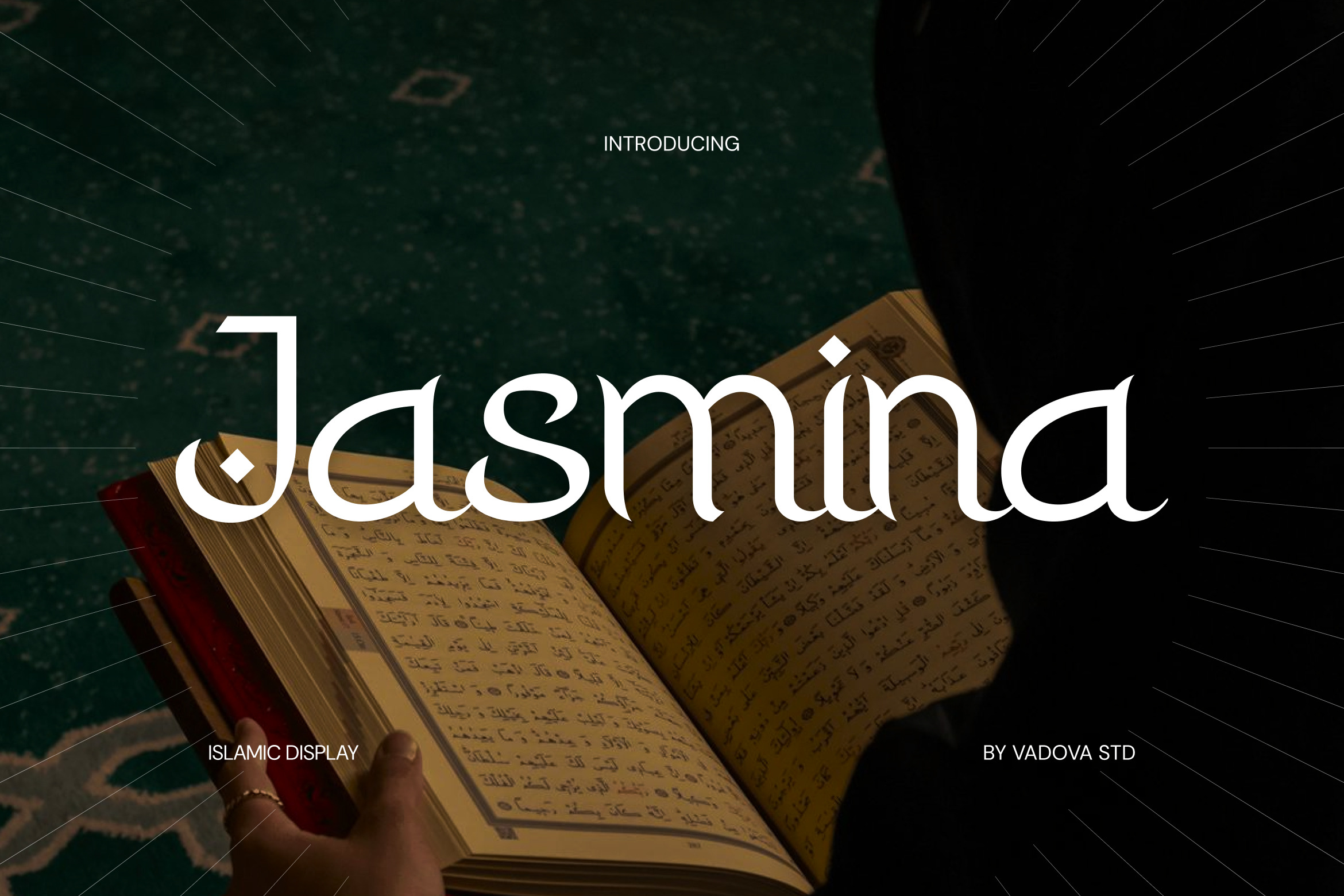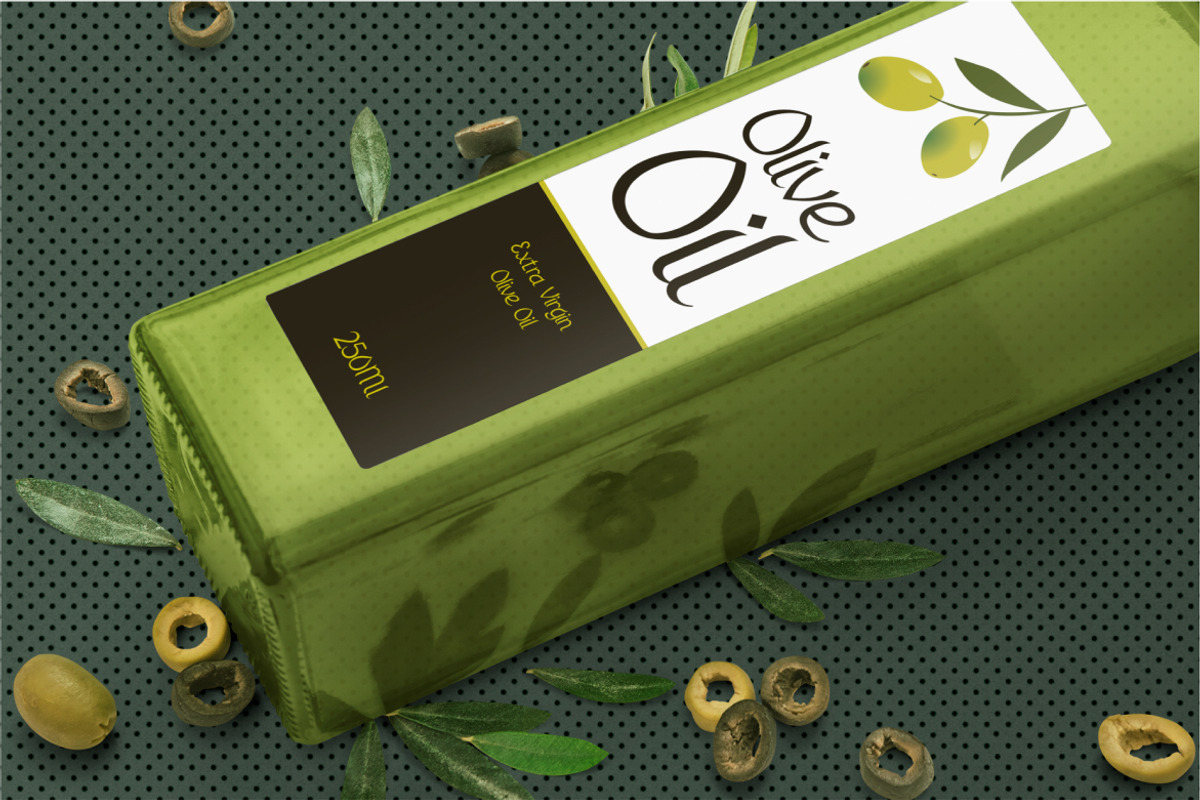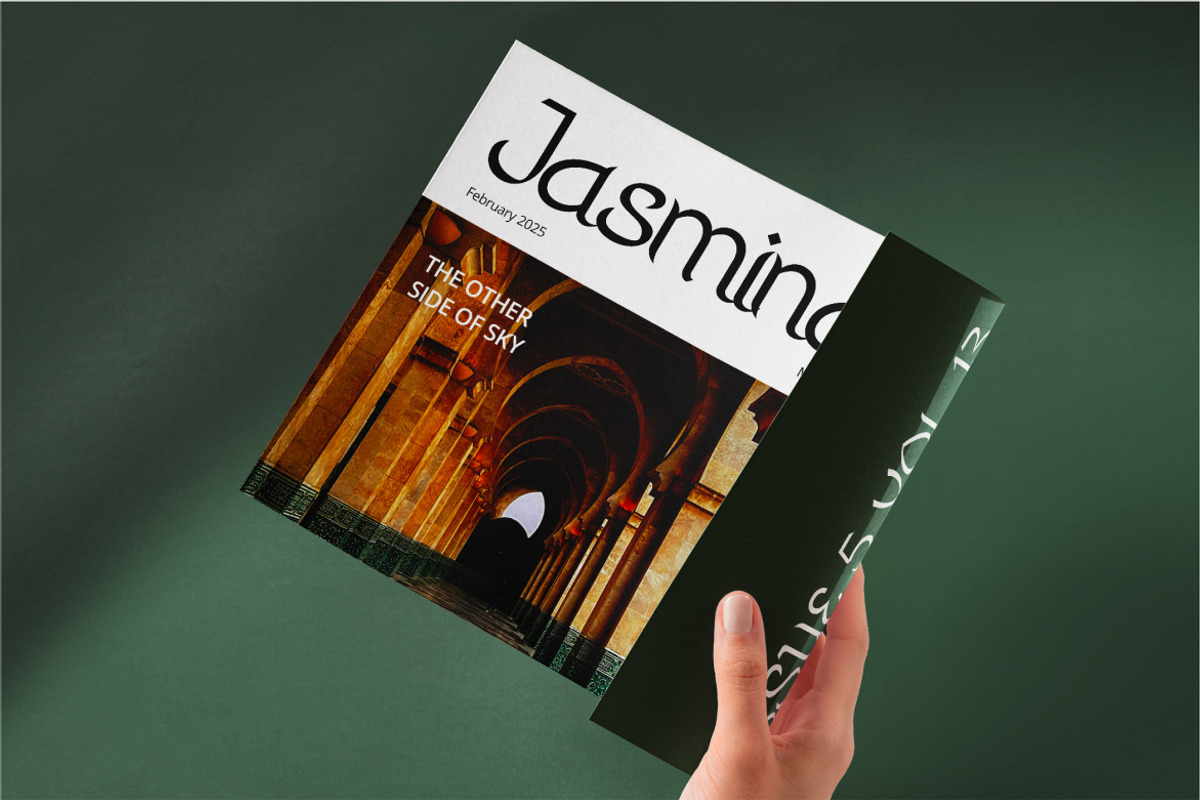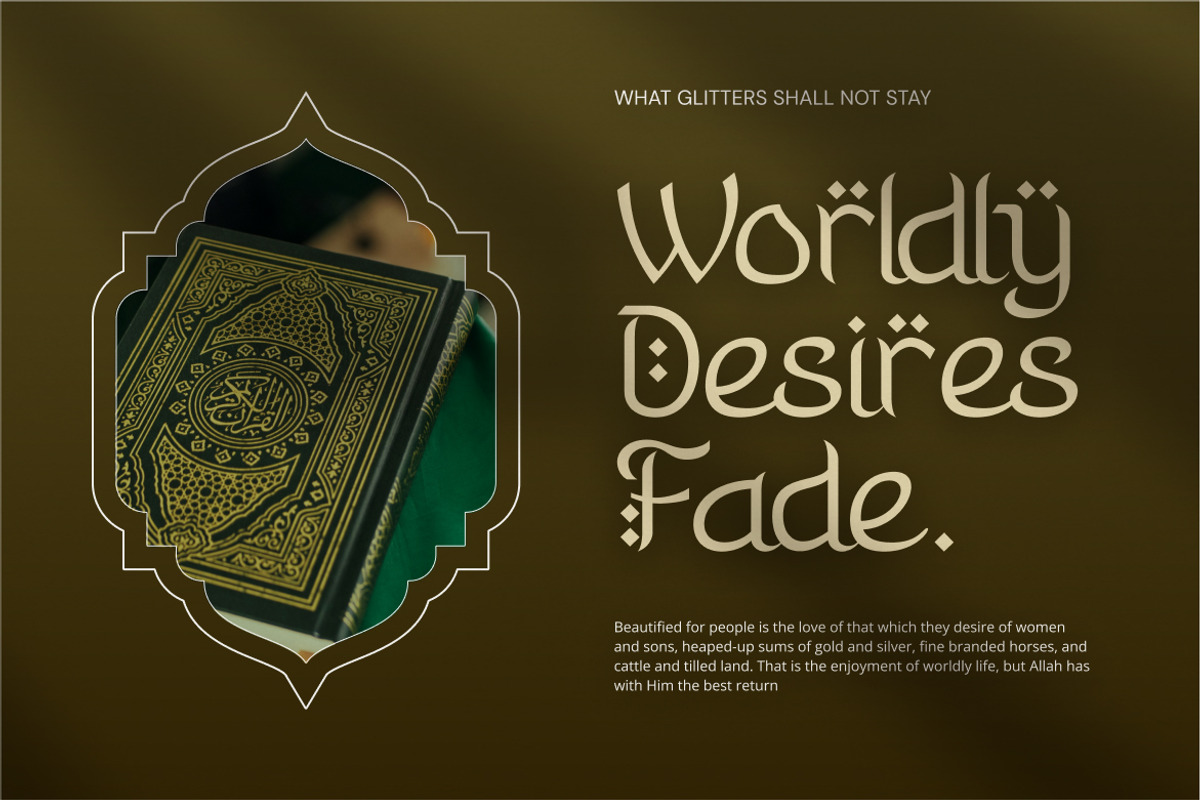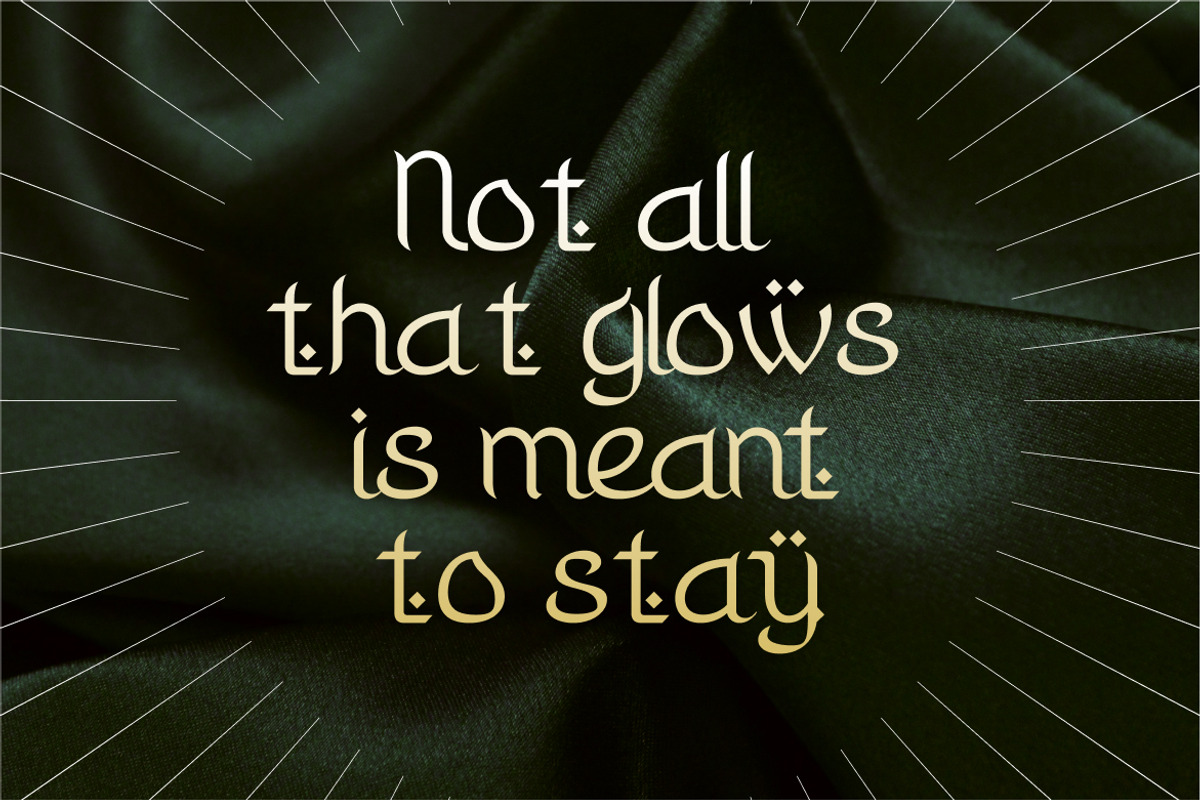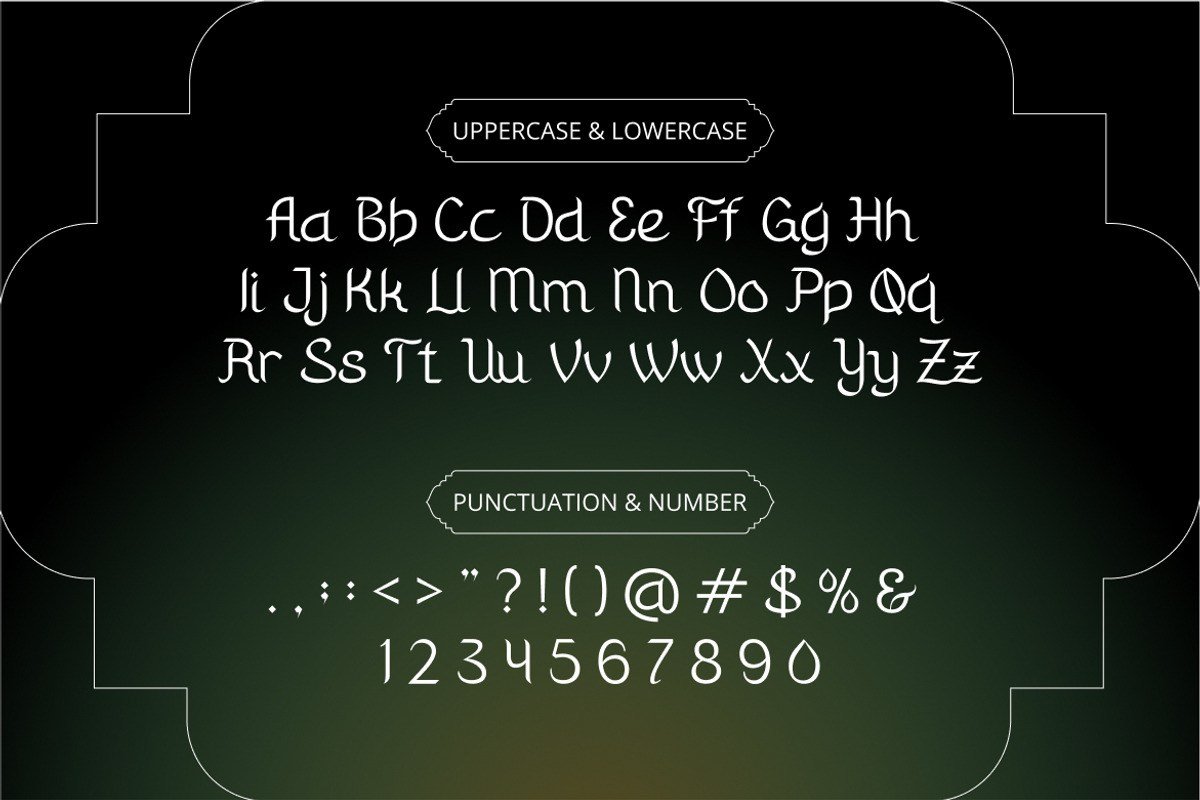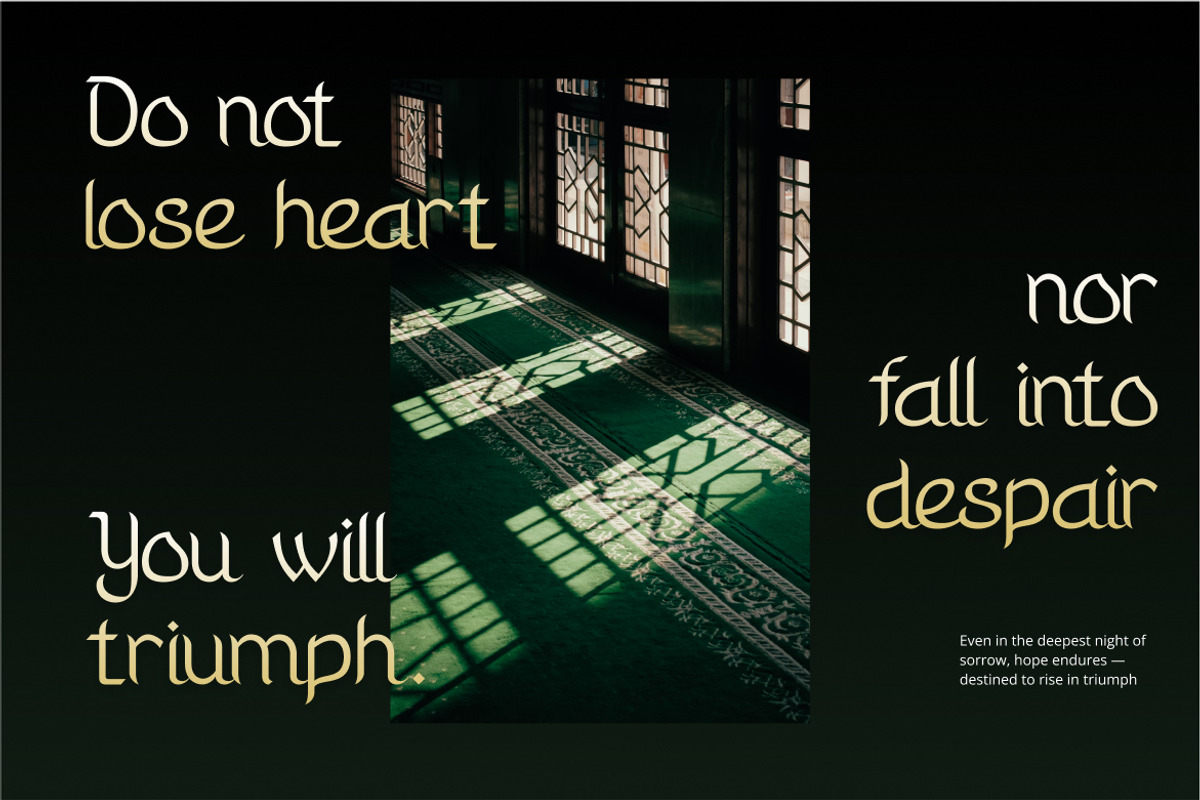
Jasmine Islamic Display Font
Jasmina is an elegant Islamic-inspired display serif font featuring graceful curves, subtle calligraphic touches, and refined ornamental details. Designed to capture a spiritual and sophisticated aesthetic, this typeface blends classical serif structure with Middle Eastern decorative nuances, making it perfect for premium and cultural-themed designs.
Jasmina is highly relevant for designers working on Islamic branding, Ramadan promotions, Eid campaigns, halal product packaging, religious book covers, mosque events, cultural festivals, and luxury modest fashion brands. It works beautifully for businesses and personal projects that require a refined spiritual aesthetic with a premium visual tone.
- Islamic-inspired serif with elegant ornamental touches
- Graceful curves influenced by Middle Eastern calligraphy
- Soft flared terminals with balanced stroke contrast
- Decorative yet clear for strong display impact
- Refined spacing for headline and branding use
- Islamic brand identity and luxury modest fashion logos
- Ramadan & Eid promotional materials
- Religious book covers and spiritual quotes
- Halal product packaging and premium labels
- Mosque events, cultural festivals, and heritage branding